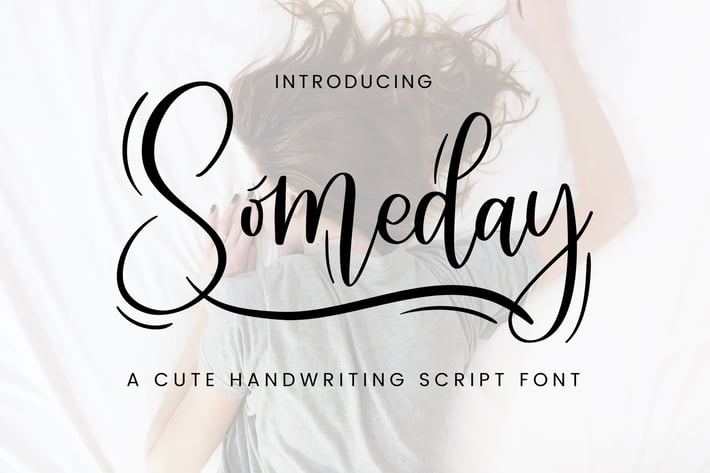
Someday – Handwriting Script Font
Someday – Handwriting Script Font is a Cute Handwriting typeface, perfectly suitable for creating quotes, Wedding Invitations, lifestyle designs such as logos, title, magazine, and more.
– Lowercase
– Ligature
– Alternate
– Multilingual Support